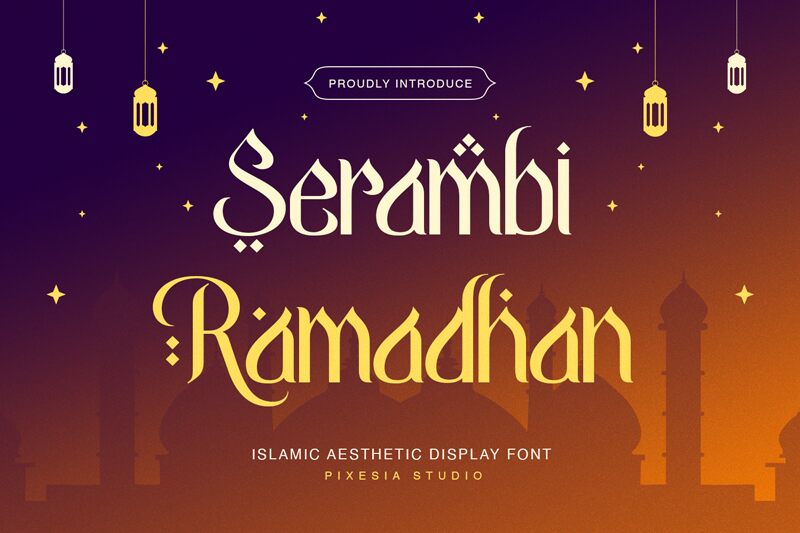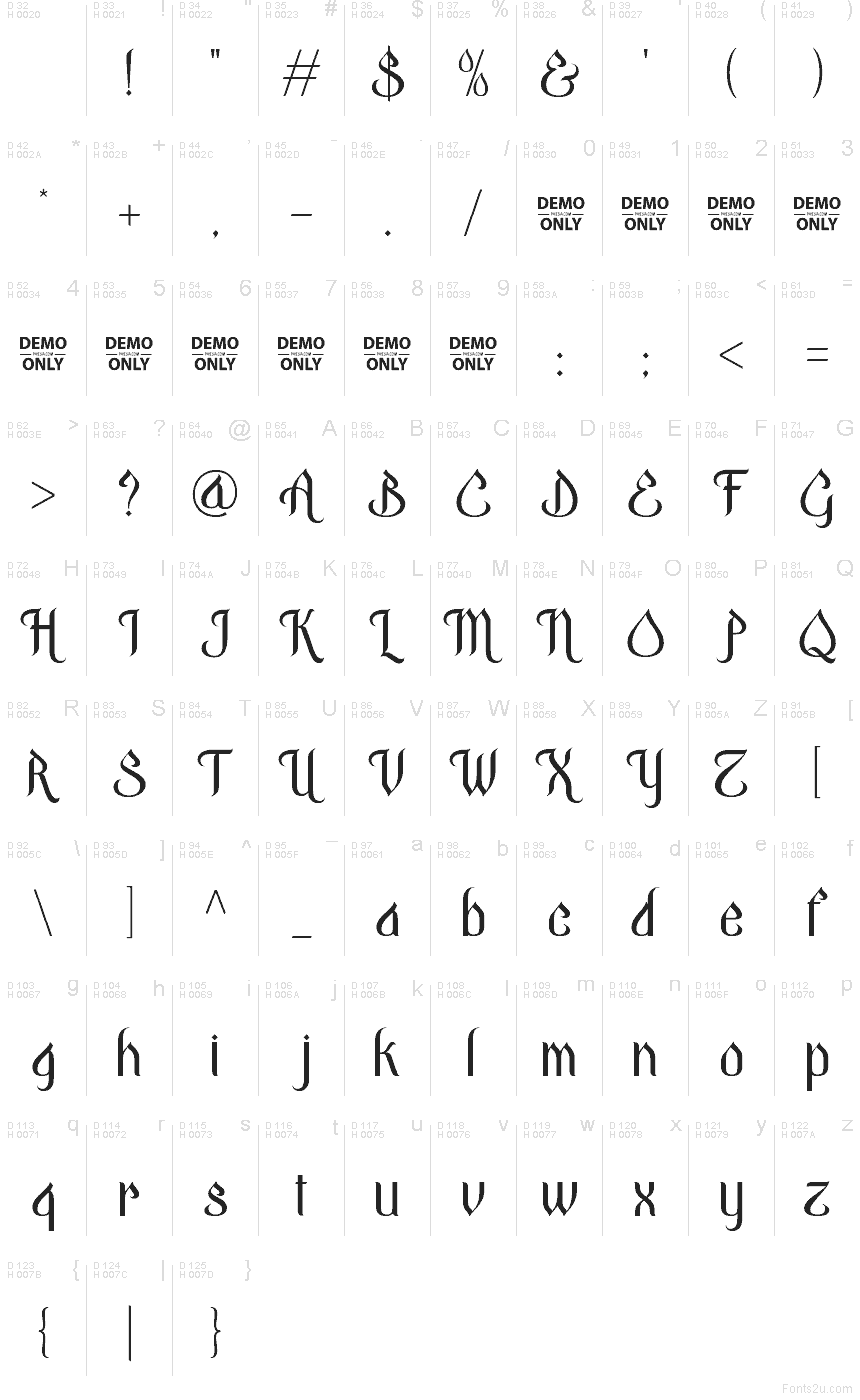
Serambi Ramadhan Demo Regular
Serambi Ramadhan font by Pixesia Studio is a free faux Arabic decorative typeface that instantly sets a spiritual, Middle Eastern–inspired mood. Tall, tapering letterforms curve like inked strokes from a calligraphy pen, while the tight rhythm and pointed arches echo mosque architecture and lantern patterns. It feels both ceremonial and warm, giving Latin text the visual cadence of traditional Arabic script without sacrificing readability.
Using Serambi Ramadhan, you can give Ramadan campaigns, iftar invitations, charity posters, social media banners, packaging, and greeting cards a cohesive festive character. This free font shines in larger sizes where its sculpted curves and sharp joints can really breathe; pair it with a clean geometric sans for body text to keep layouts clear and contemporary.